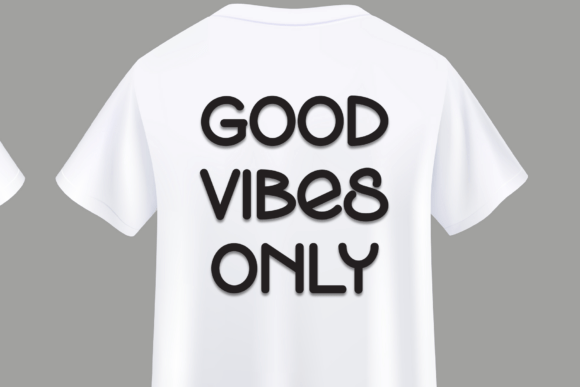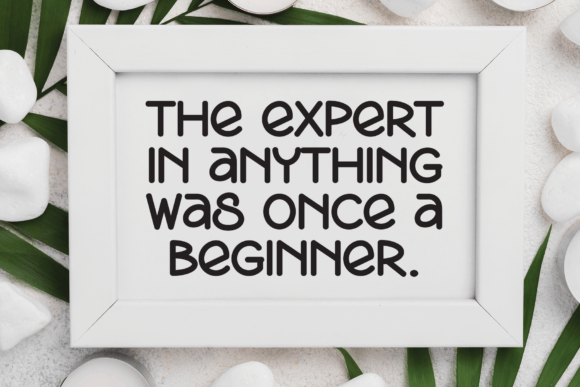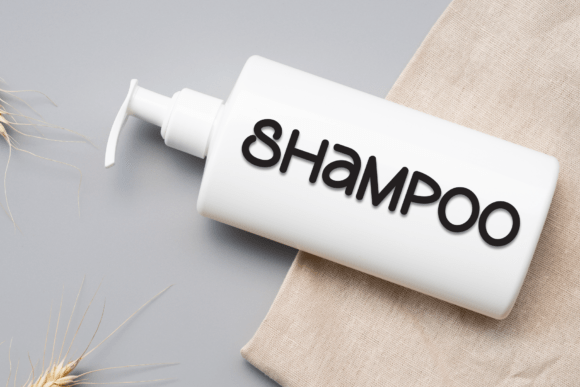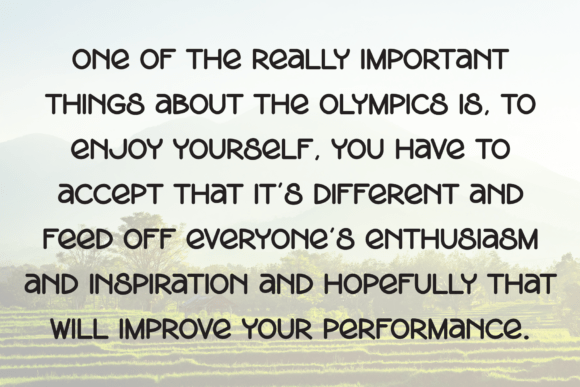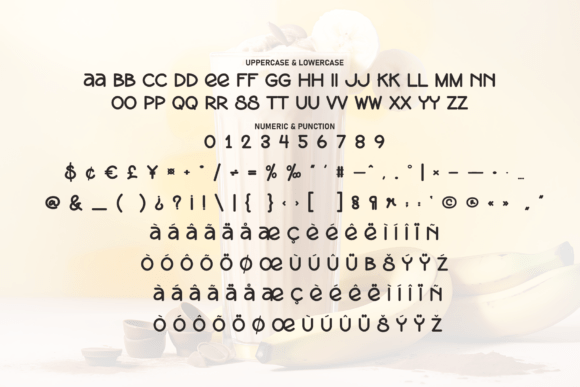
Designing a Smooth Ride with the Banana Smoothies Font
There’s something special about sipping on a refreshing banana smoothie on a sunny morning. The combination of natural ingredients, the vibrant colors, and the comforting taste all come together to create a delightful experience. Similarly, when it comes to designing a brand or digital content, a well-chosen font can evoke the same feeling of warmth and approachability. One such font that can help designers achieve this is the Banana Smoothies Font.
Designed to capture the essence of modern handwritten typography, the Banana Smoothies Font features clean lines, balanced letterforms, and subtle rounded edges. This versatile font is ideal for branding, headlines, packaging, and digital content, adding a warm and inviting touch to any design. With its crisp structure and polished finish, the Banana Smoothies Font delivers clarity and charm in equal measure, making it a valuable addition to any designer’s toolkit.
Banana Smoothies Font Key Features
- Font Family: Banana Smoothies is a unique, hand-drawn font family designed for creative projects.
- Character Set: Includes uppercase and lowercase letters, numbers, punctuation, and special characters for comprehensive use.
- Unique Characteristics: Features a playful, hand-drawn style with a mix of curved and straight lines, perfect for adding a touch of whimsy to designs.
Designer Review: Banana Smoothies Font
Overall, I think Banana Smoothies Font has a lot of potential, but it also comes with some limitations. Let’s dive into what works well and what doesn’t.
- Fun and playful vibe: The font is perfect for creating a lighthearted and approachable atmosphere in your design.
- Good for casual text: Banana Smoothies works well for short paragraphs and headlines, especially in creative and humorous contexts.
- Unique character set: The font has a distinctive personality that sets it apart from more common sans-serif fonts.
- Legibility issues: In smaller sizes, the font can become difficult to read, especially for people with vision impairments.
- Limited versatility: Banana Smoothies is best suited for casual, creative projects. It may not be the best choice for formal or professional designs.
- Not ideal for body text: The font’s irregularities can make it challenging to read large blocks of text.
Banana Smoothies Font is a great addition to any designer’s toolkit, but it’s essential to use it in the right context. If you’re looking to add some personality to your design and create a fun, approachable atmosphere, this font is a great choice. Just be mindful of its limitations and use it sparingly.
The “Banana Smoothies Font” is a playful and fun font that is perfect for:
- Children’s products and packaging
- Summer-themed designs and marketing materials